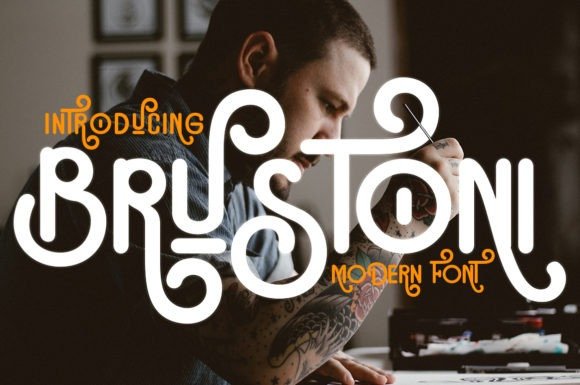
Brustoni Display Font
Brustoni is a serif font that combines classic style fonts that are moderated with a minimalist design touch, produces beautiful and elegant fonts, and is supported by ligatures and more font replacements with some characters brought in, will make you explore your design style easier, with various alternative styles that allow for logos, posters, covers, main packaging, t-shirts, business cards, wedding cards and more.